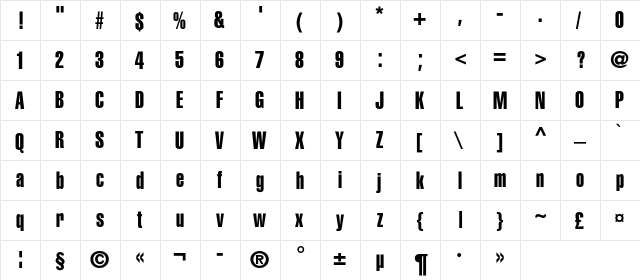
HeliosExtraCompressedC Regular
Design Context for HeliosExtraCompressedC Typeface
HeliosExtraCompressedC is a composed and adaptable typeface that performs quietly and consistently across a wide range of design contexts.